At our 10/28 meeting, everyone was left wanting more embroidered samplers and graffiti — Craig Eliason has kindly shared helpful online resources on both below. After the presentation and Q&A, discussion turned to new type book releases, and old type industry newspapers. If you have resources to add on any of the meeting or discussion topics, please feel free to add them in the comments!
Resources: Embroidered Samplers & Graffiti
Samplers:
Graffiti:
Books: Type Design Releases
After we all admired James Edmondson’s gorgeous “The OHno Book”, I made a shameless plug for a new addition to my hoarding situation type book reference library, “Specimen No. 0” by Fernando Mello, which chronicles his 22 years in the industry. It is gorgeous, charming, and has little backstories on all the fonts Fernando made from 2001 — 2023. Perhaps adding to its allure, the red-black-and-white-all-over volume may only be purchased by DM-ing Fernando on Instagram (@fermello78), and then naturally one waits anxiously by the mailbox for it to arrive from Brazil (spoiler: worth it!).
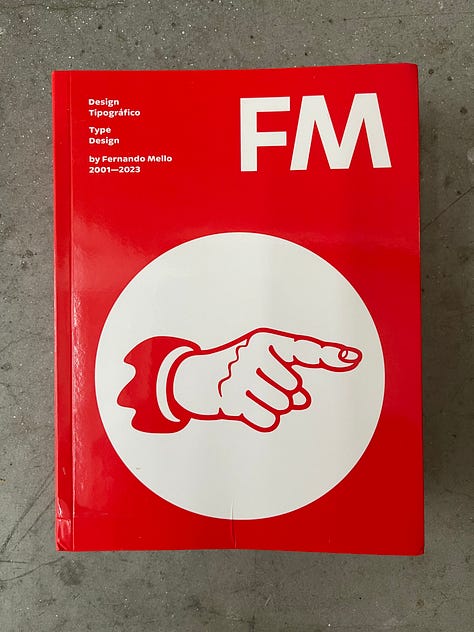
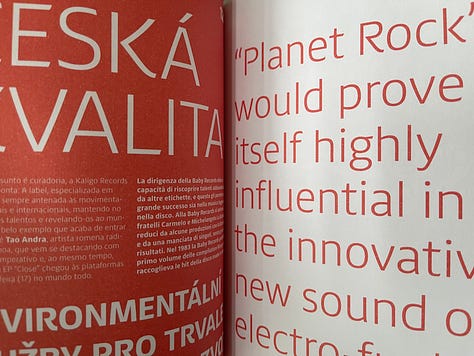
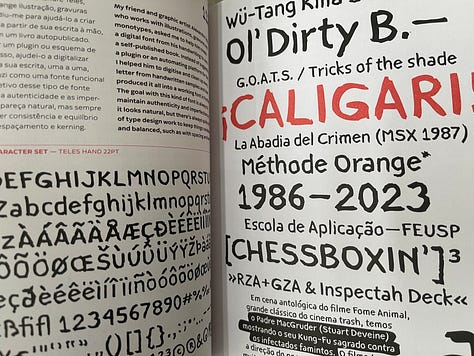
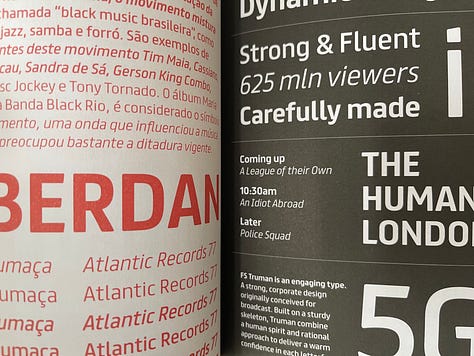
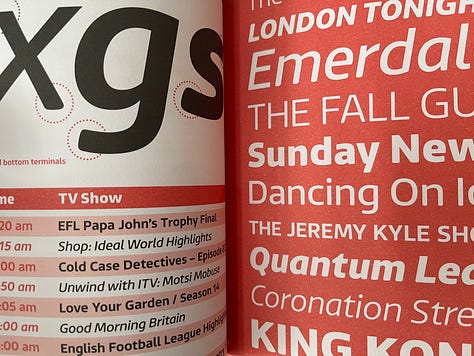
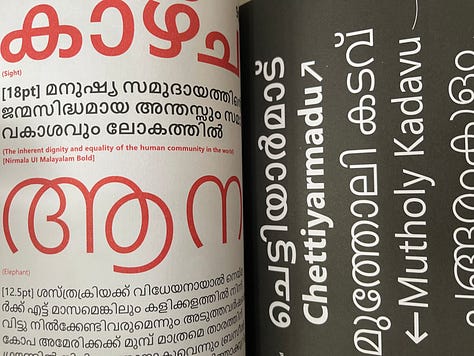
History Things: Type Industry Publications, circa 1990 or thereabouts
Mark Simonson brought two very cool type industry news publications for review, TypeWorld and The Typographer to the meeting (terrible photos, there is no good lighting angle in that room). So fun seeing that release of Adobe Type Manager headline. And the TypeWorld masthead = A+. Question, is there a definitive type industry news source currently, or is anything worth knowing just shared and discussed on TypeDrawers?